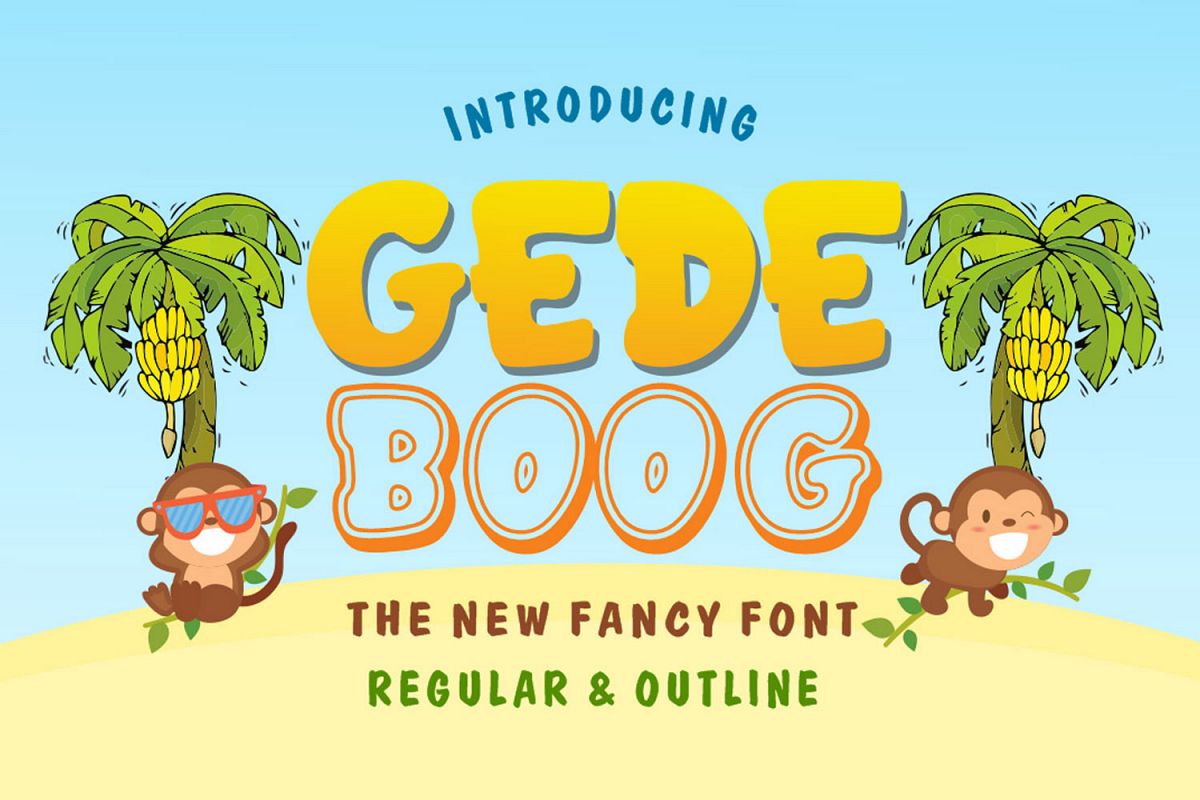
Gedeboog
The Gedeboog is a fun, yet fancy font. It comes in two amazing styles which can be combined perfectly. It’s perfect for adding a cute and playful touch to your designs.It can be used for t-shirts, quotes, posters, logos, magazines covers, and even large-scale artwork.